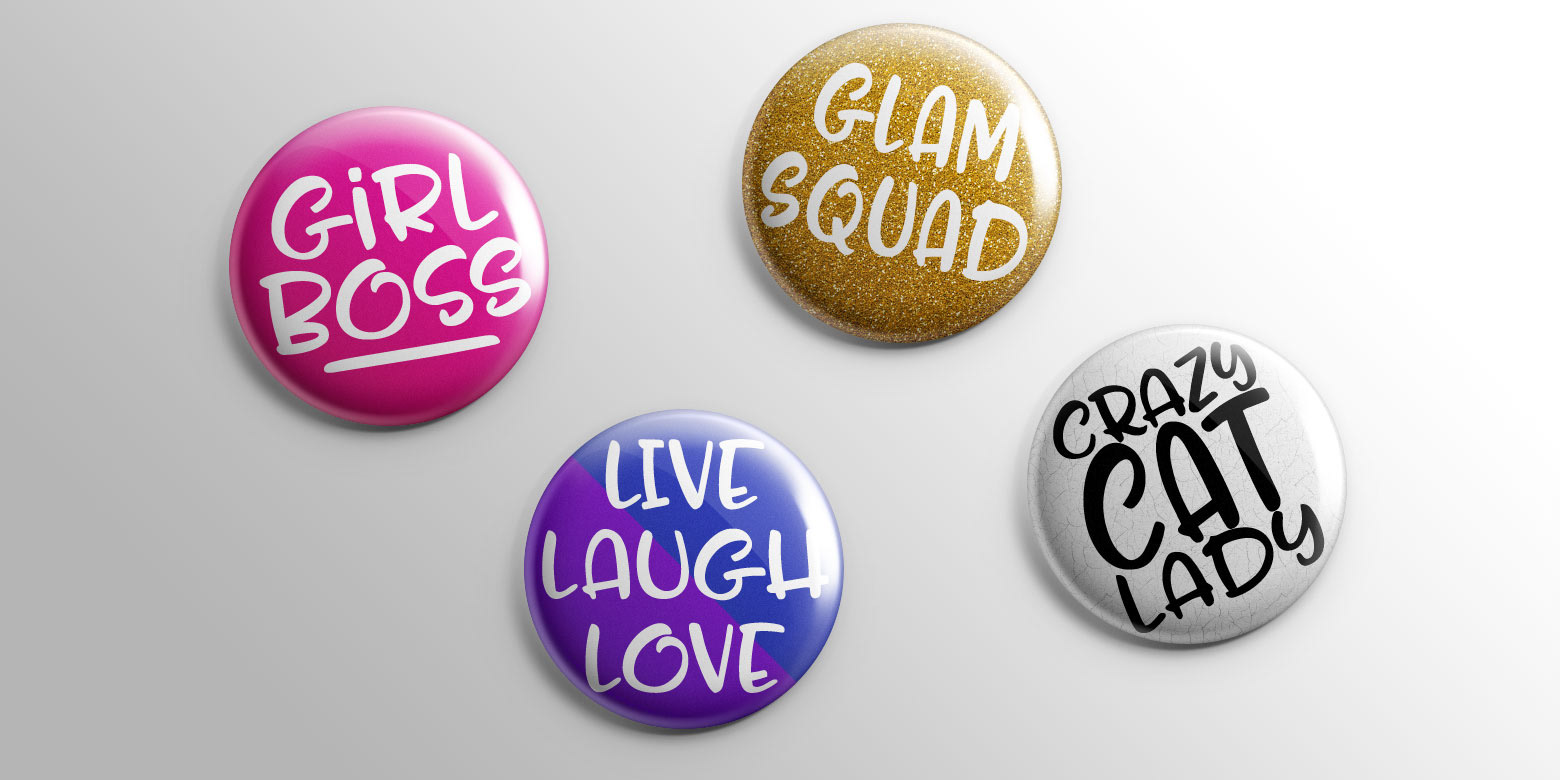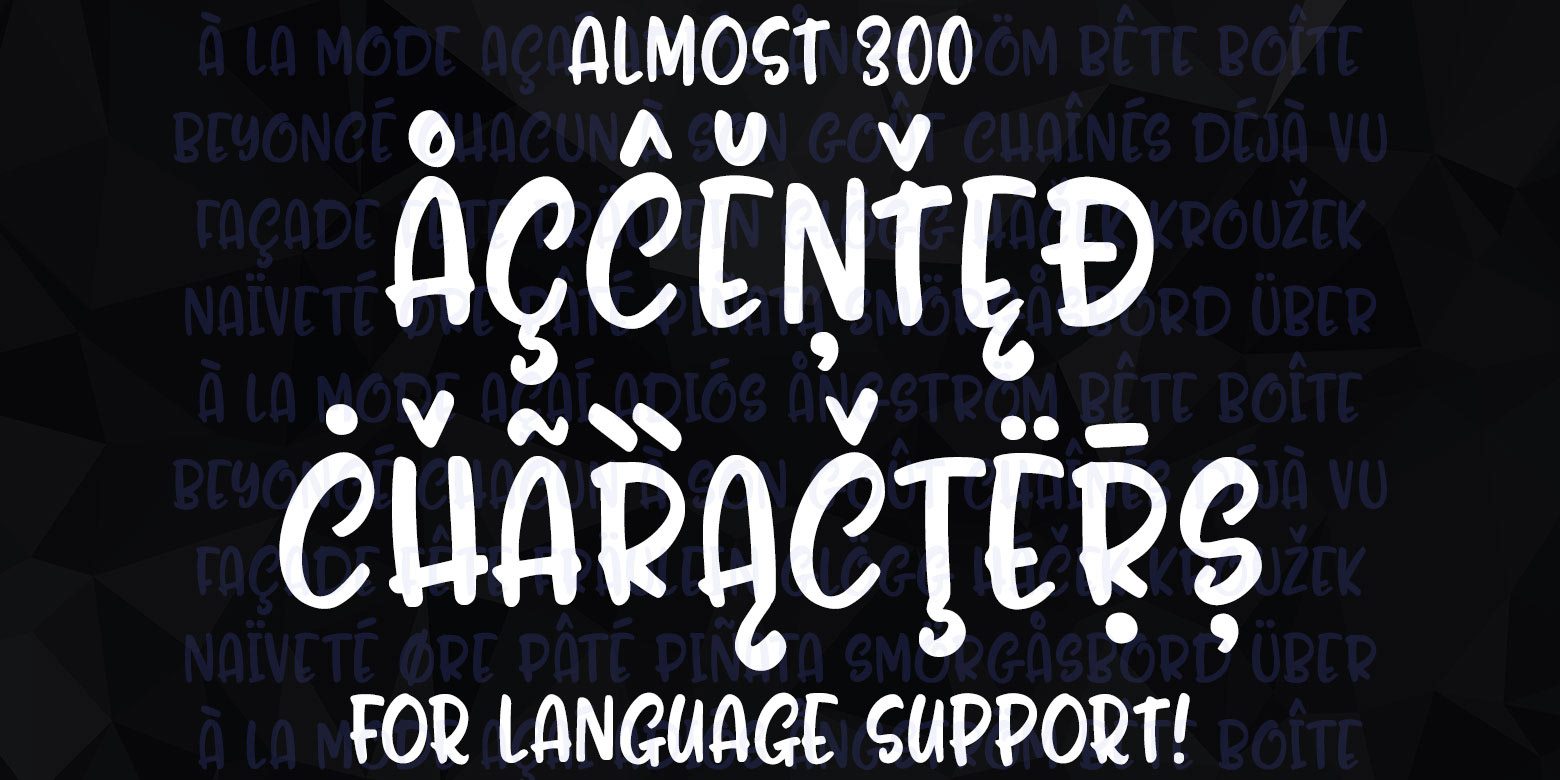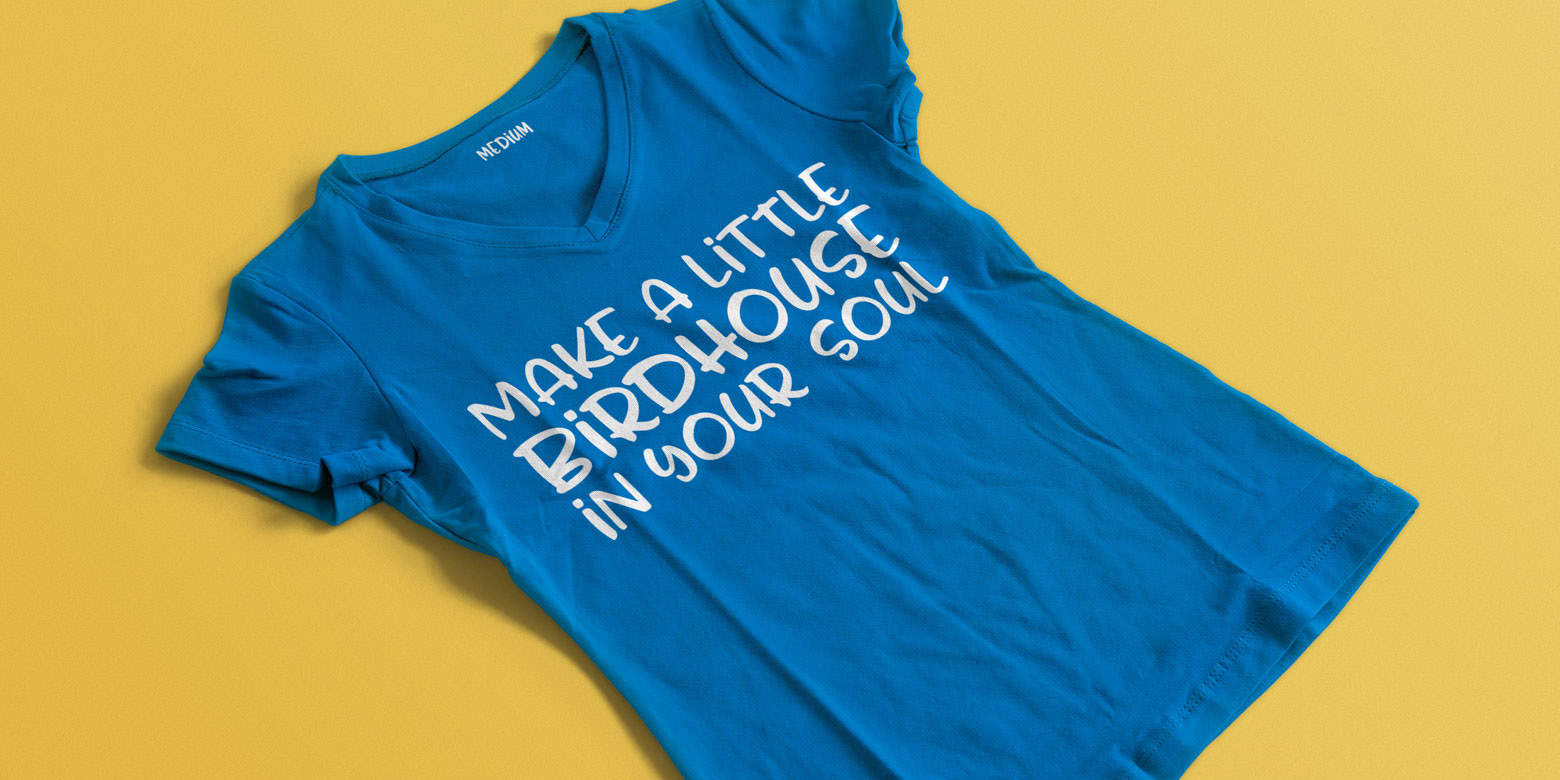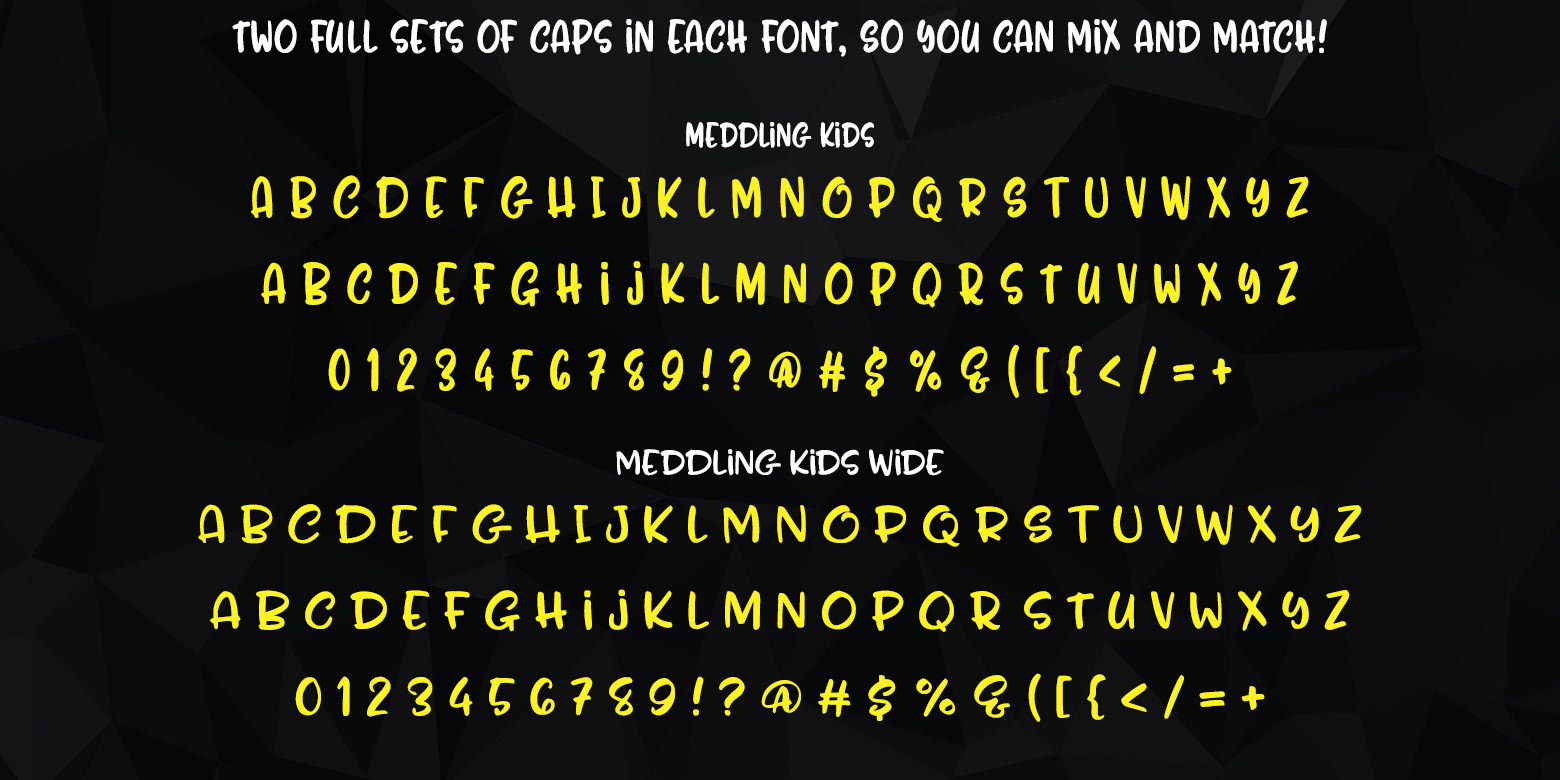
Meddling kids are usually the bane of one's existence, especially when they drive around in a groovy van solving mysteries with their talking dog. But now they can be fun helpers for all your crafting needs! This is a double-uppercase handwriting font (two sets of uppercase letters, one set mapped to the uppercase and one to the lowercase) so you can mix and match letters within a word.
Whether you're in the mood for some narrow writing or something a bit wider, Meddling Kids has you covered with a regular and wide version.
- Uppercase A-Z
- Lowercase a-z
- Numbers 0-9
- Standard punctuation
- Approximately 300 accented characters for language support
- Lowercase a-z
- Numbers 0-9
- Standard punctuation
- Approximately 300 accented characters for language support